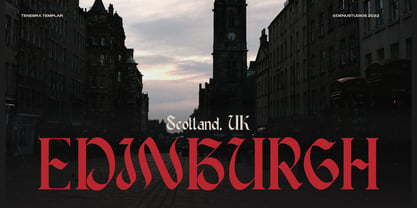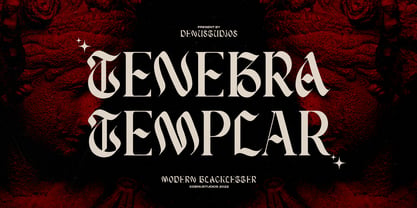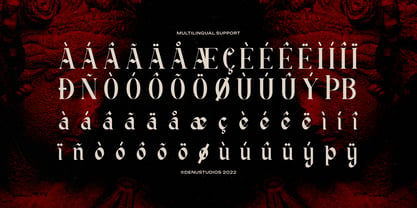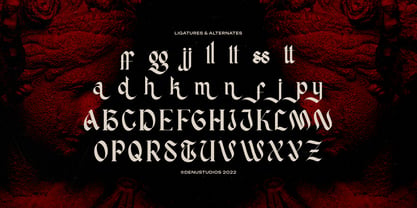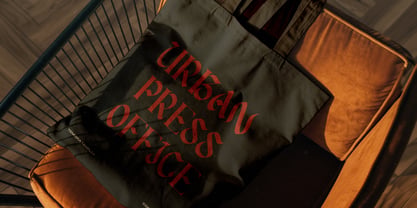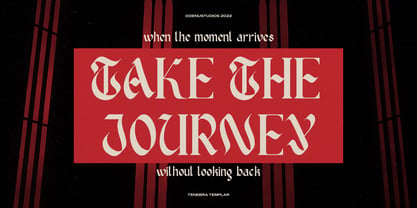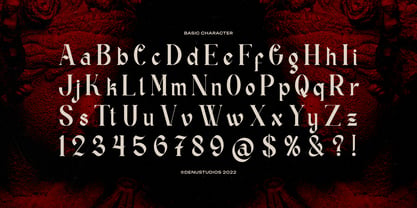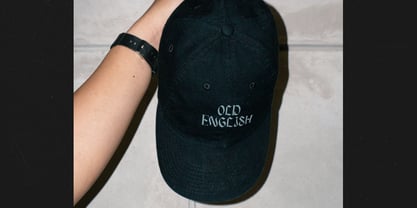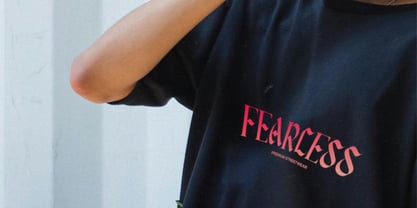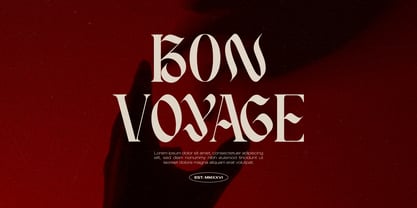
Tenebra Templar
Tenebra Templar | Blackletter Typeface, from Denustudios, suitable for any projects such as: logos, branding projects, homeware designs, product packaging, mugs, quotes, posters, shopping bags, t-shirts, book covers, name card, invitation cards, greeting cards, label, photography, watermark, special events, and all your other lovely projects that need Blackletter a taste.